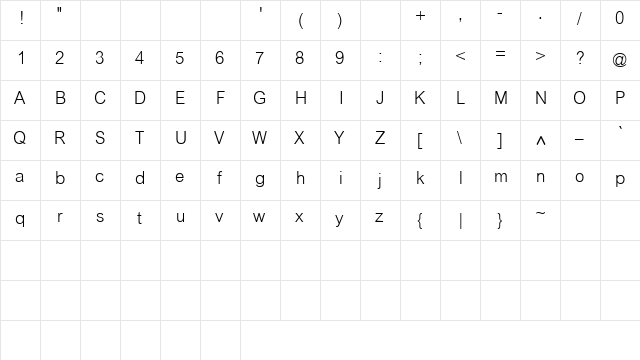
JG Mende Regular Font Preview
JG Mende Regular
Design Context for JG Mende Typeface
JG Mende is a composed and adaptable typeface that performs quietly and consistently across a wide range of design contexts.